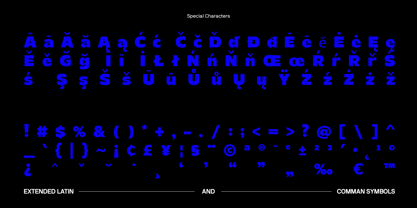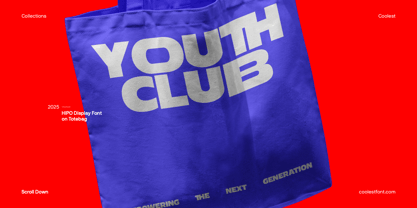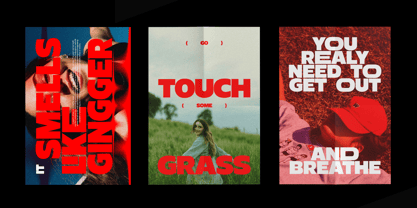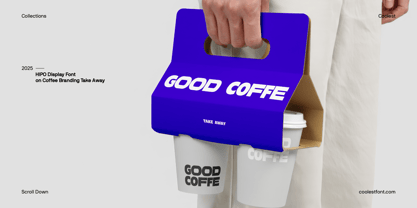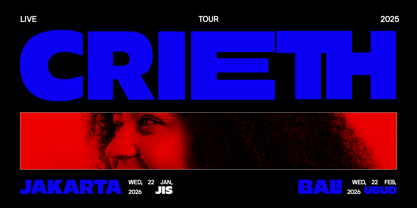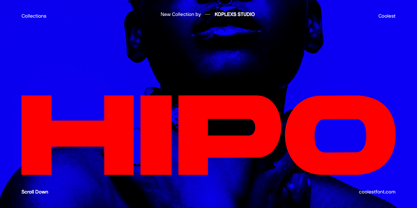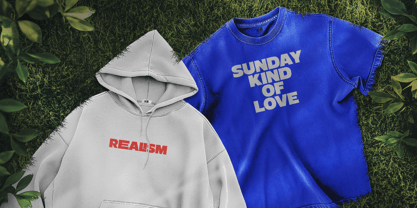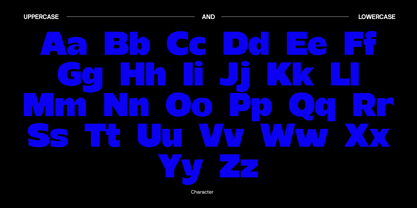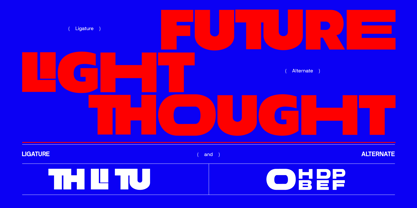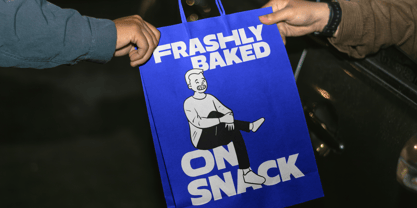
Hipo
The Hipo Font Family was designed by Ahmad Muslimin and published by Koplexs Studio. Hipo contains 1 styles. More about this family
Hipo Font is a bold sans serif font designed to bring strength, clarity, and elegance into modern design projects. With its clean geometric form and striking weight, Hipo is the perfect font for designers who want to make a bold statement without losing sophistication.
This typeface combines the versatility of a branding font with the refinement of an elegant luxury font, making it one of the coolest fonts for both digital and print applications. Whether used as a logo font, packaging font, or display font, Hipo ensures your message is always clear and impactful.
• Complete uppercase & lowercase letters
• Extended Latin characters & special symbols
• Modern sans serif construction with bold elegance
• Highly legible in both print and screen use
• Works seamlessly as a logo font, branding font, or display font
🏆 Best Uses
• Logos & Branding – Strong identity with a modern look
• Luxury Packaging – Elegant font for high-end products
• Editorial & Fashion – Bold typography for magazines and covers
• Posters & Advertising – Cool font for impactful campaigns
• Digital & Social Media – Aesthetic font for eye-catching content